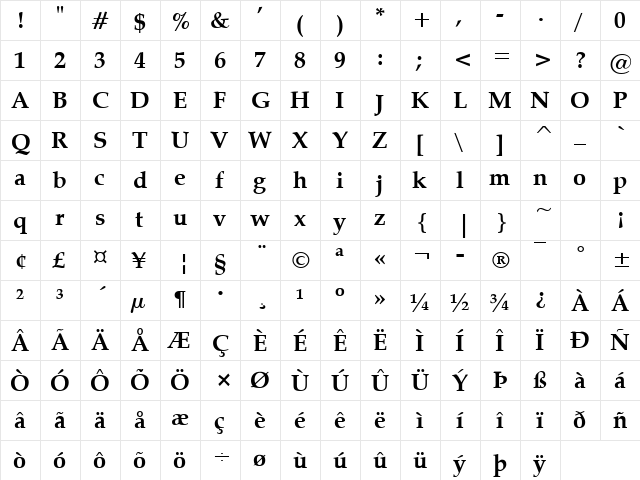
Padua Bold
Design Context for Padua Typeface
Padua offers clean, dependable letterforms without strong stylistic allegiance, making it a practical choice for designers who need flexibility. The heavy weight commands attention and anchors typographic hierarchies.